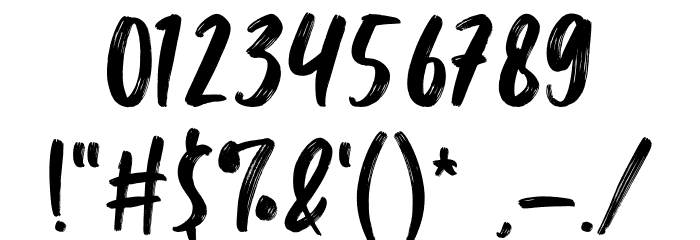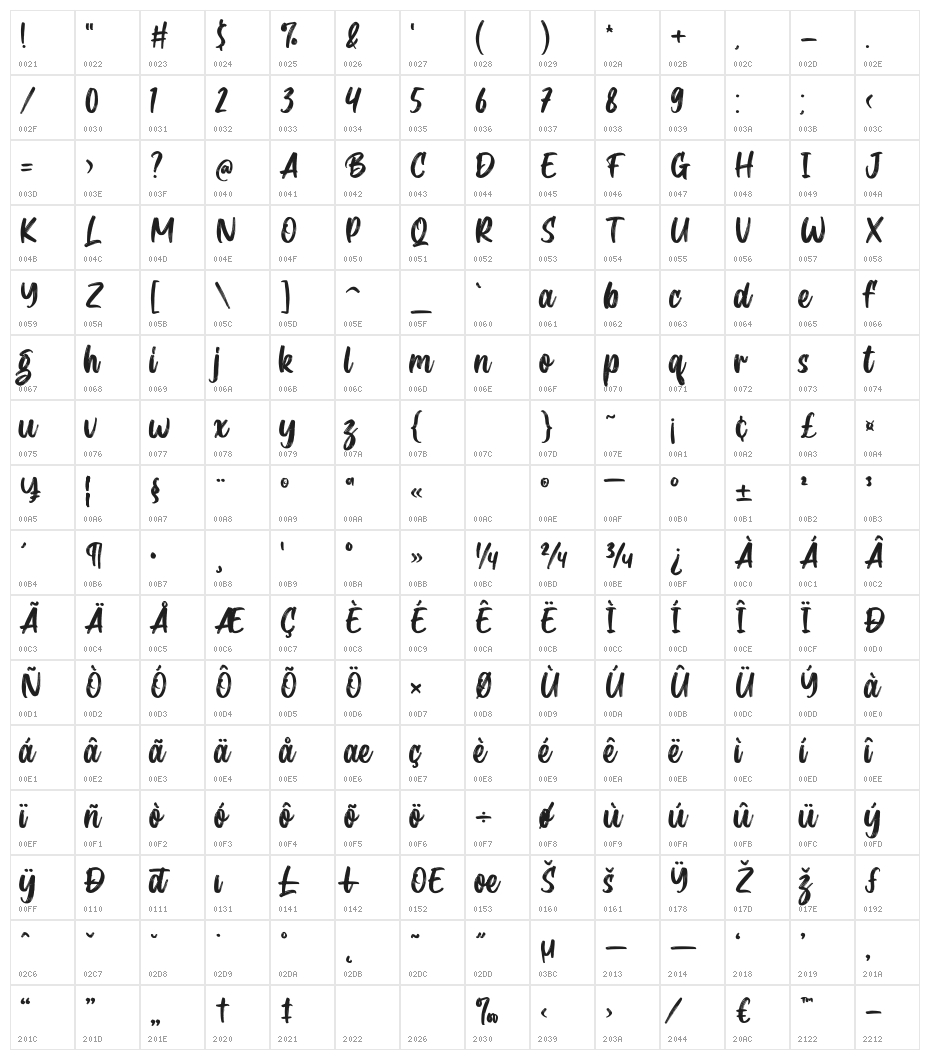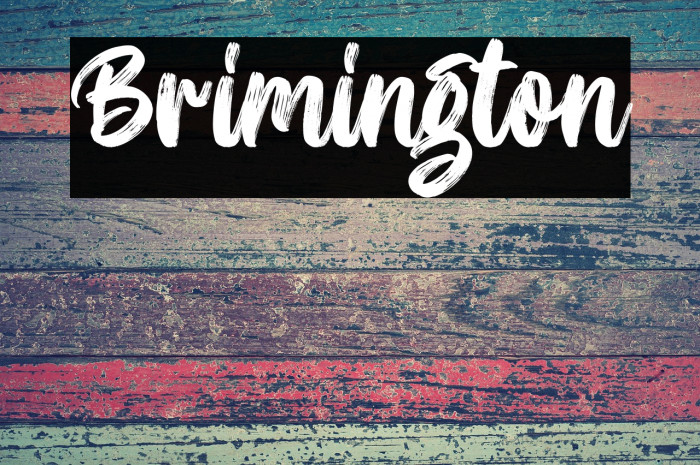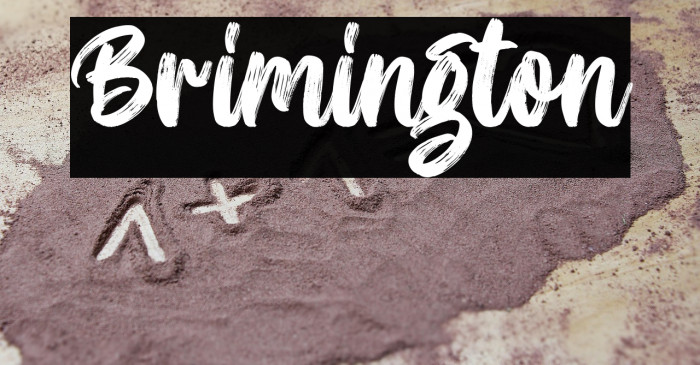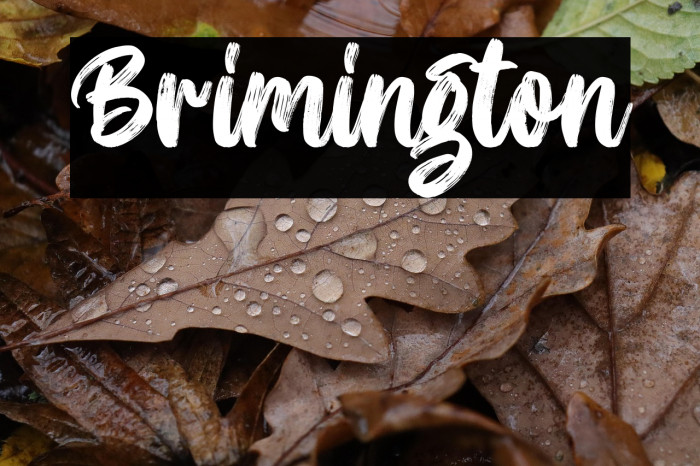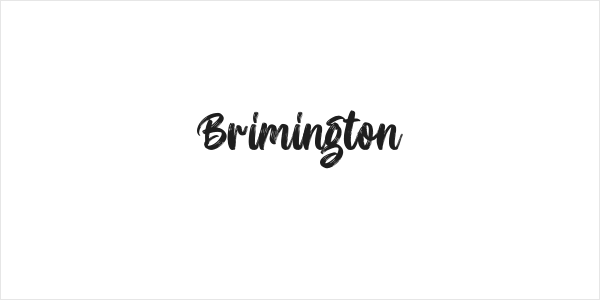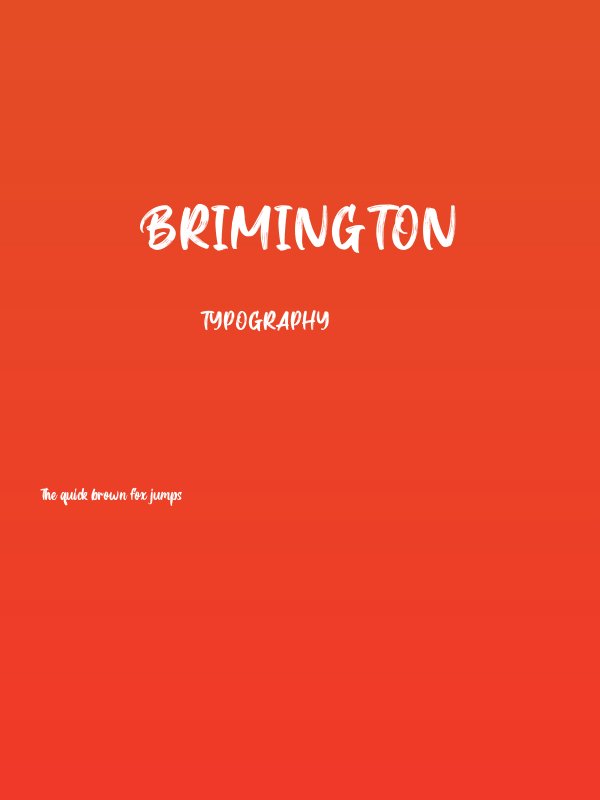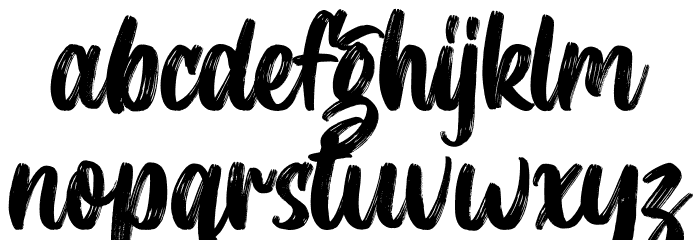
Brimington Font
Brimington Description
This font features a bold, brush script style that exudes energy and dynamism. The strokes are thick and textured, giving a hand-painted appearance that adds a personal touch to any design. The uppercase letters are bold and assertive, while the lowercase letters maintain a fluid and connected style, enhancing the font's overall cohesiveness. Numbers and special characters follow the same brush-like texture, ensuring consistency across all elements. This font is perfect for projects that require a lively and artistic flair.
| Proposed Projects | Ideal for branding, posters, social media graphics, and any project that benefits from a vibrant, artistic touch. |